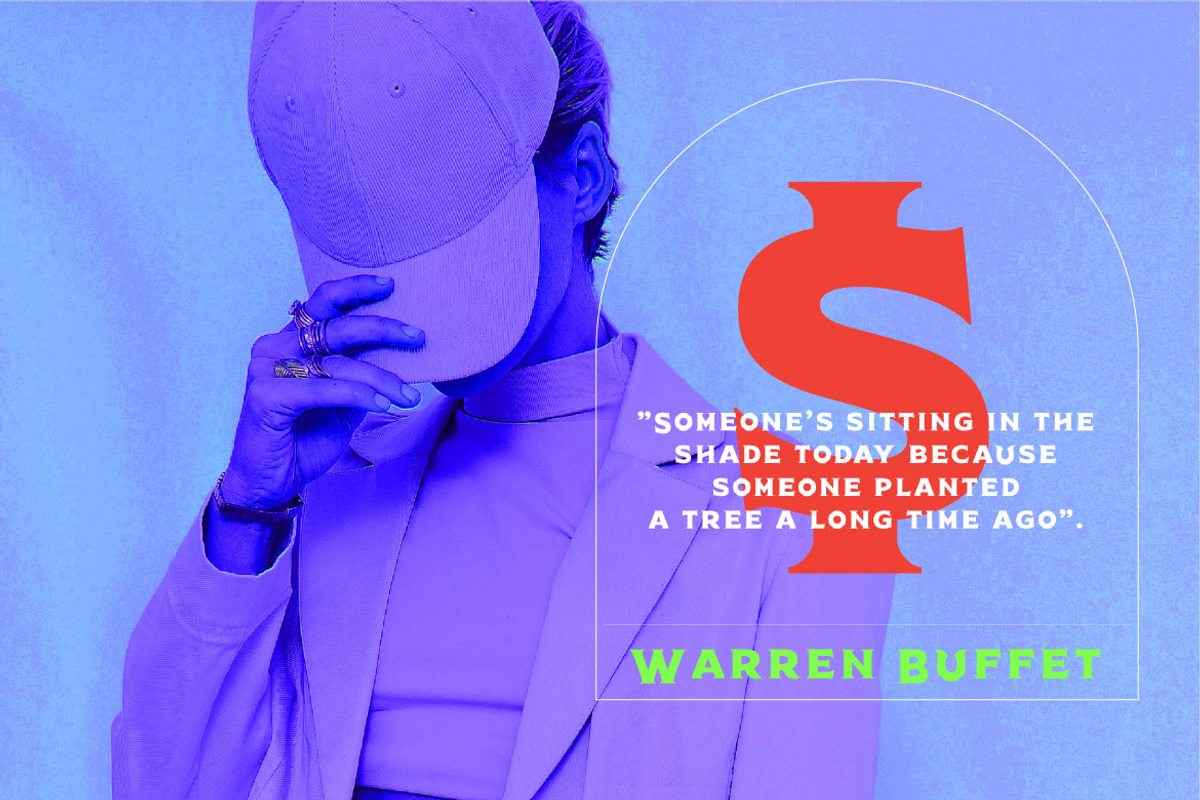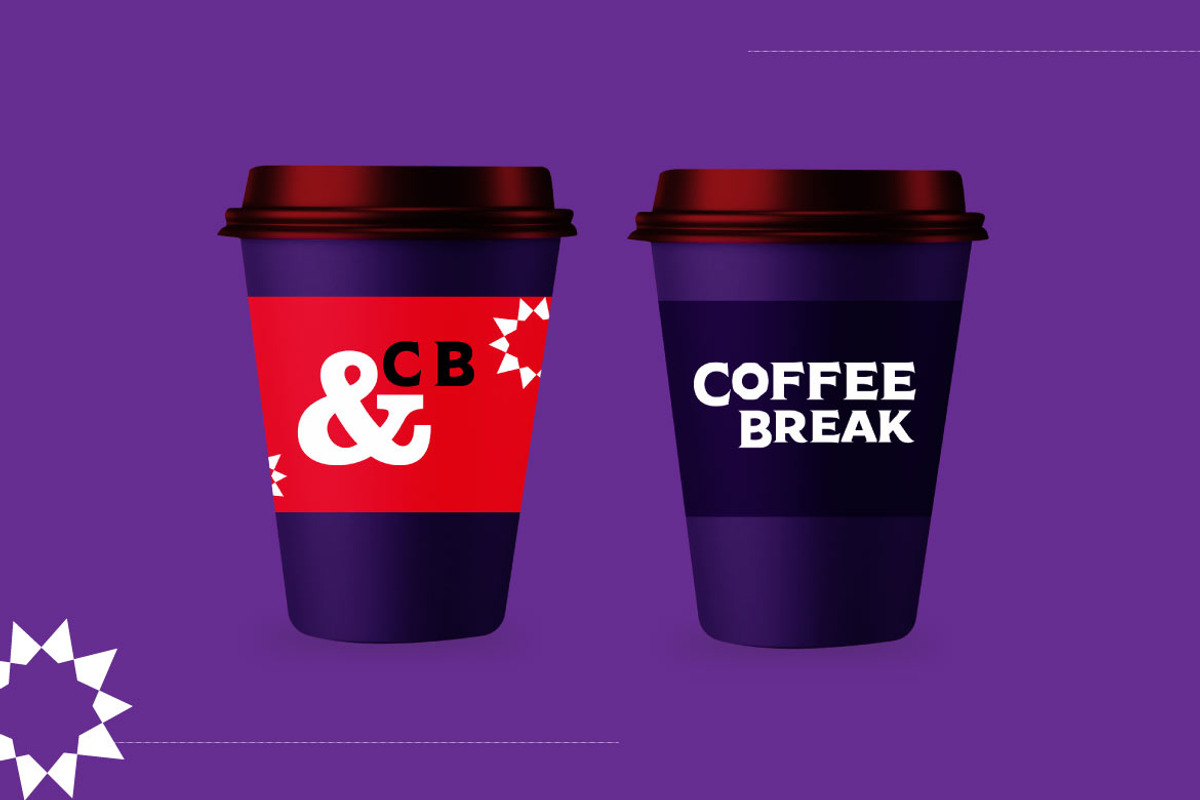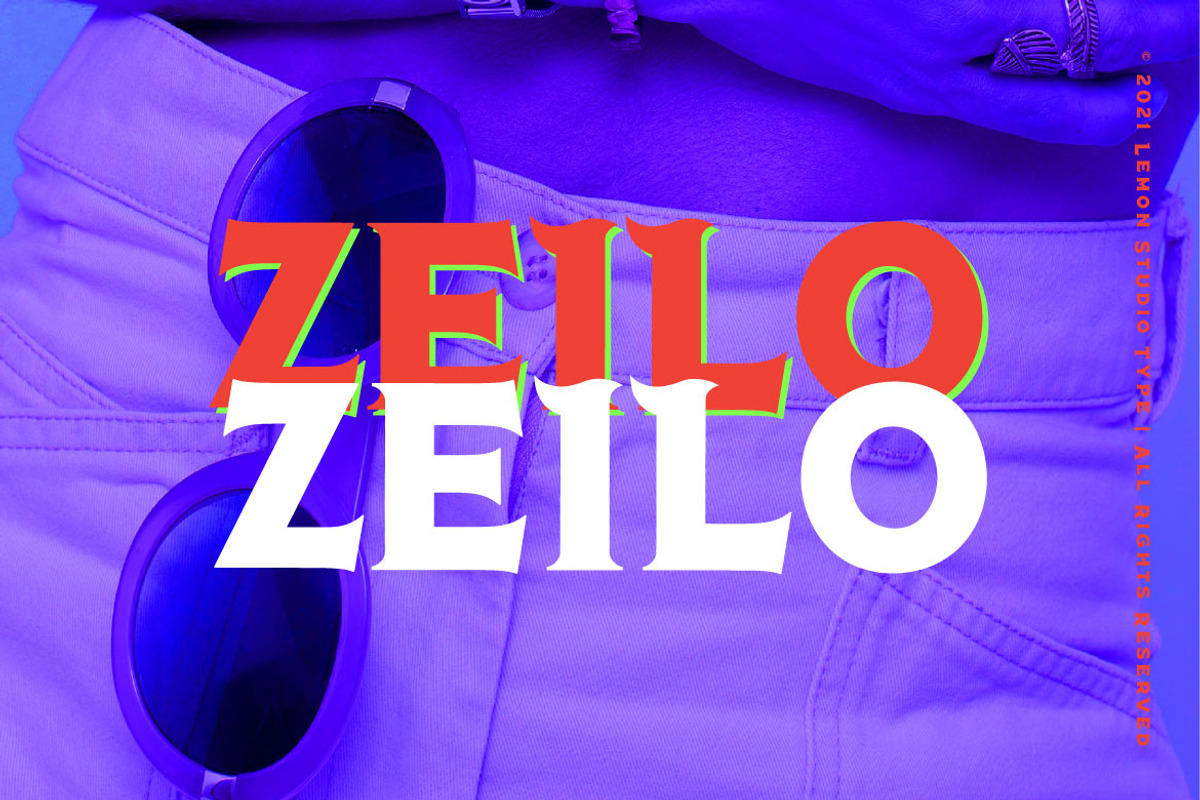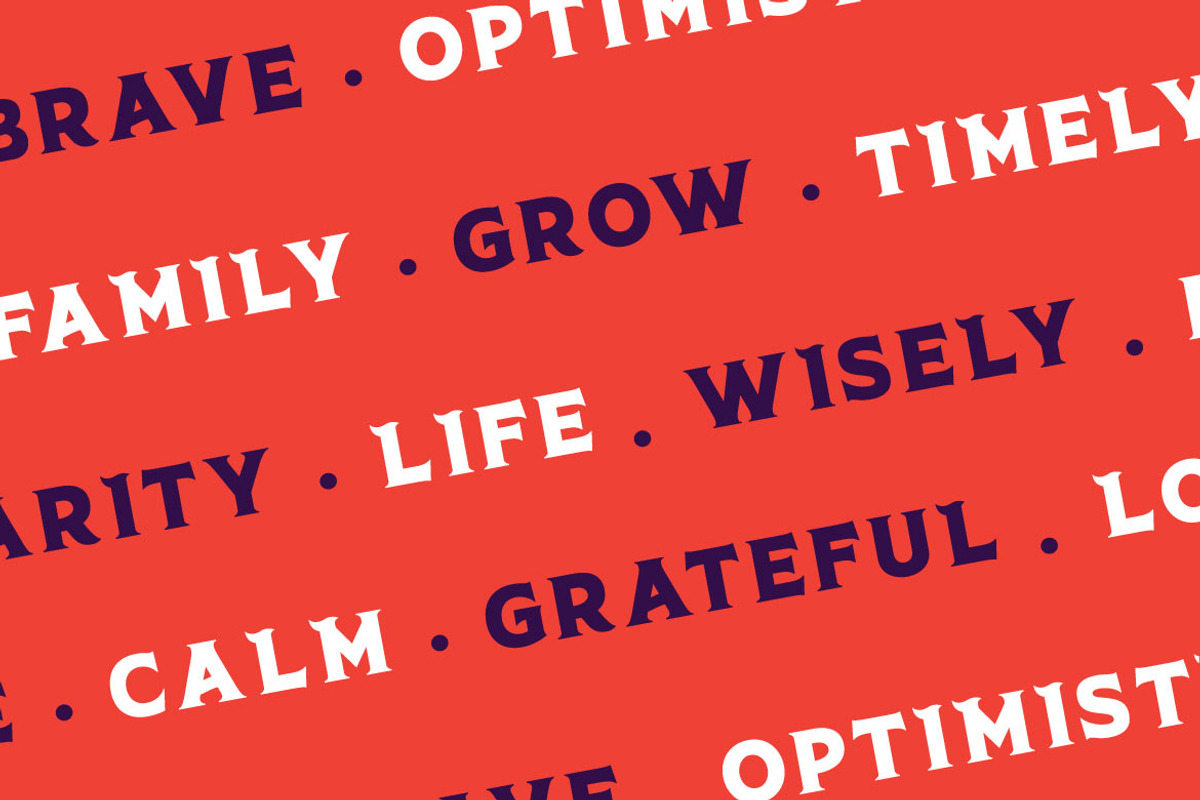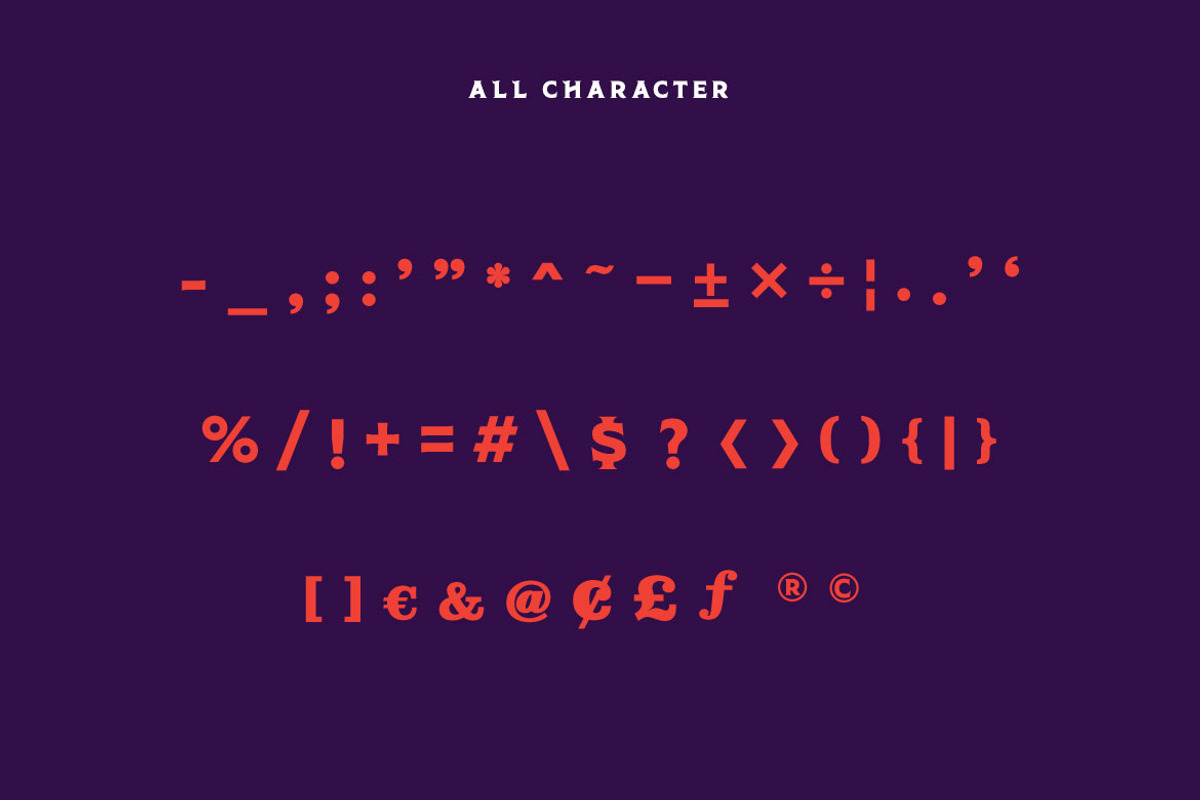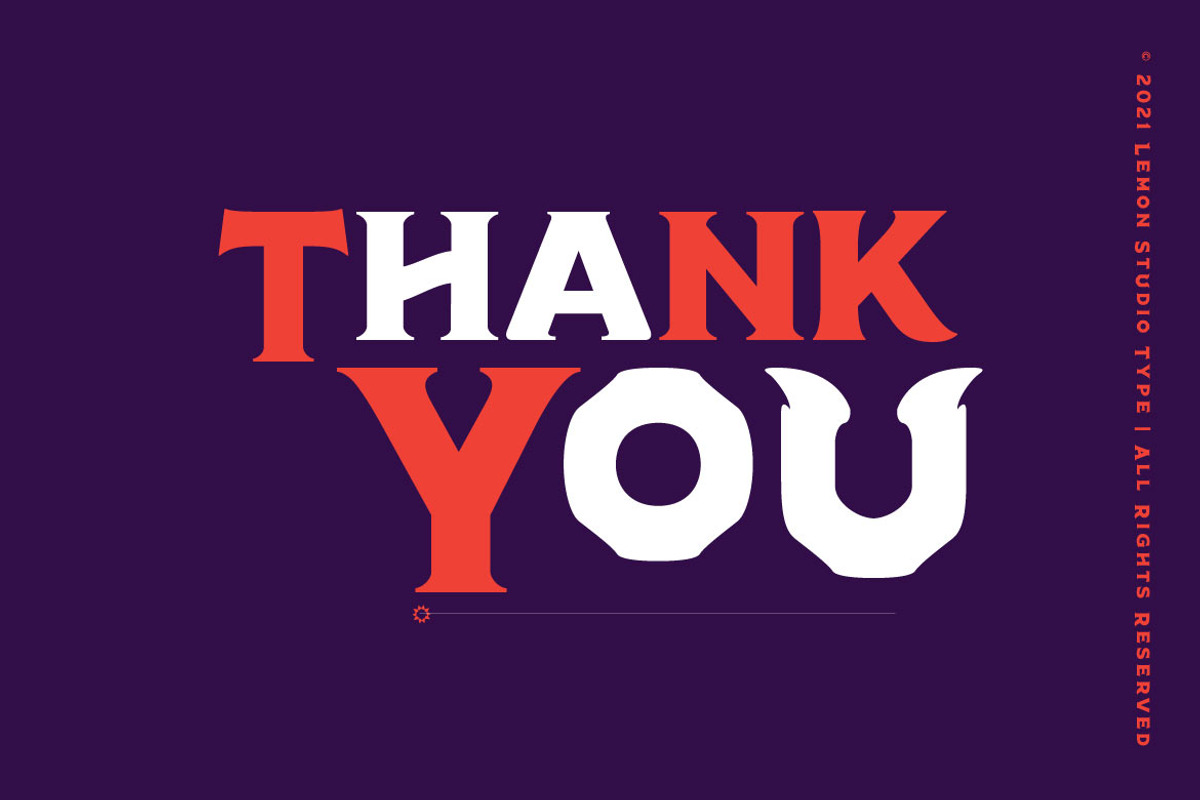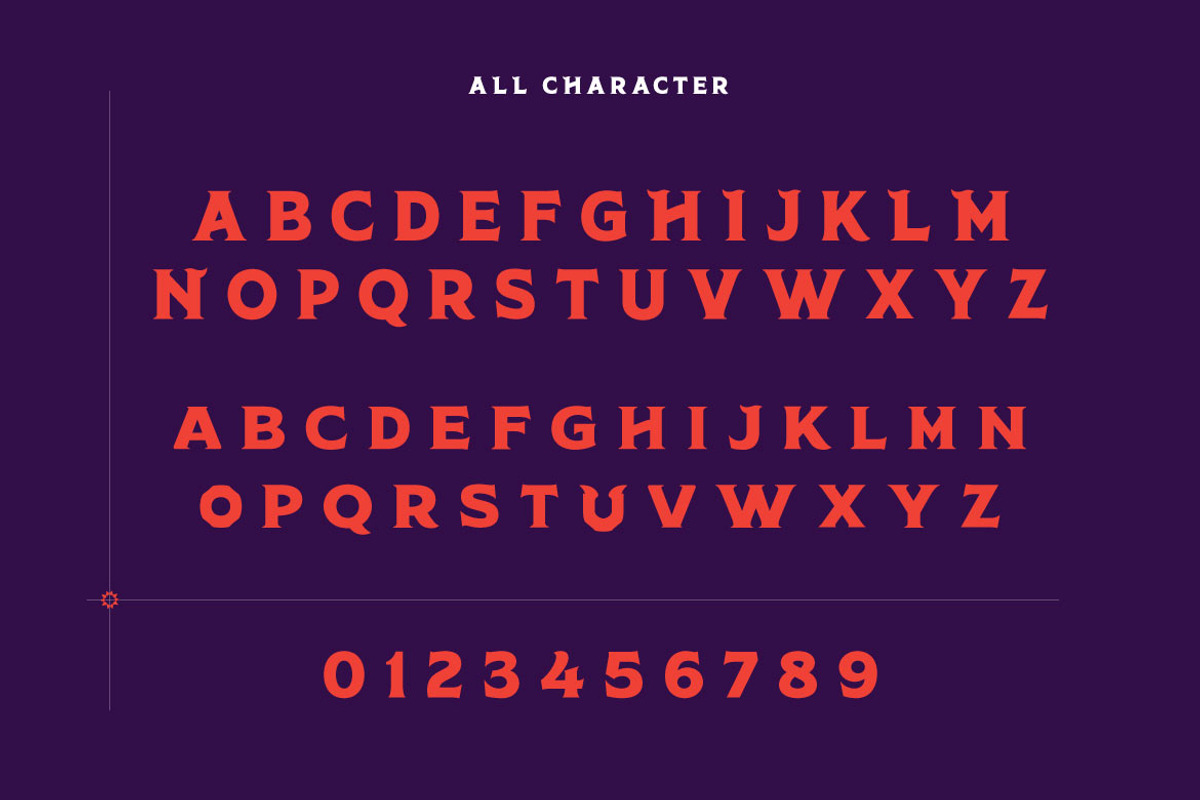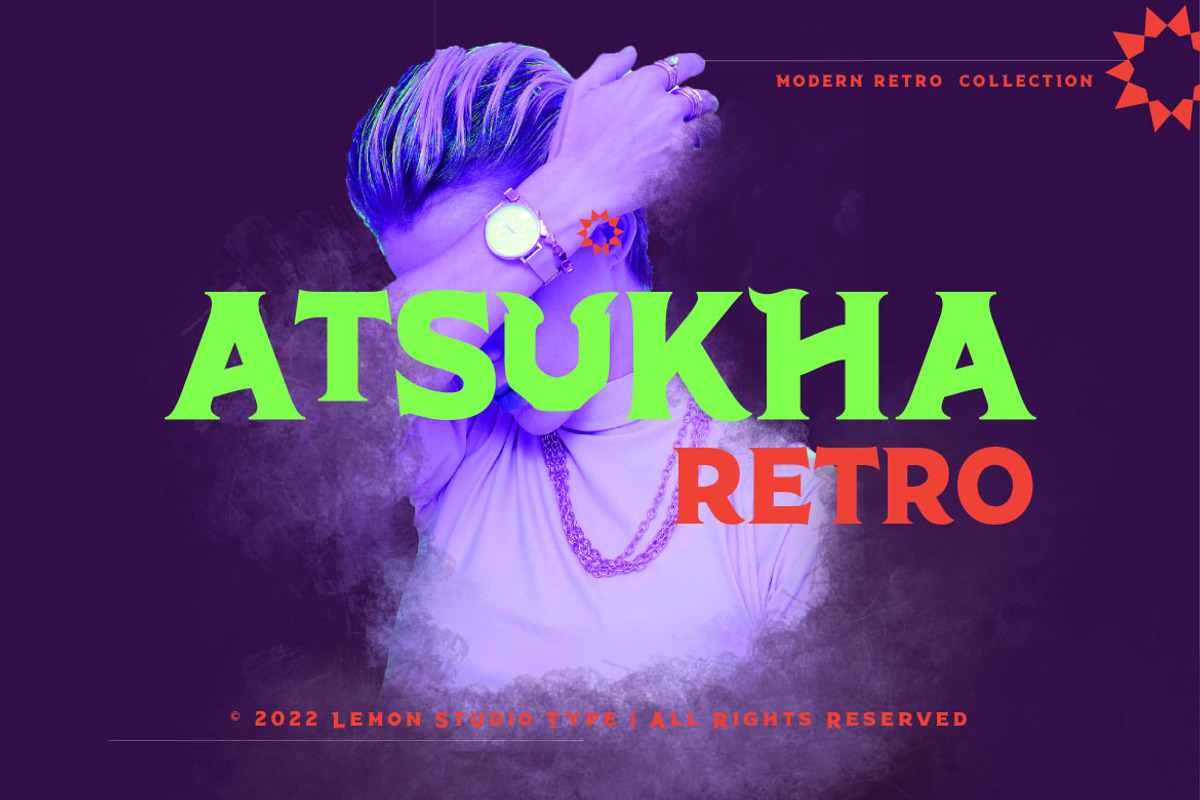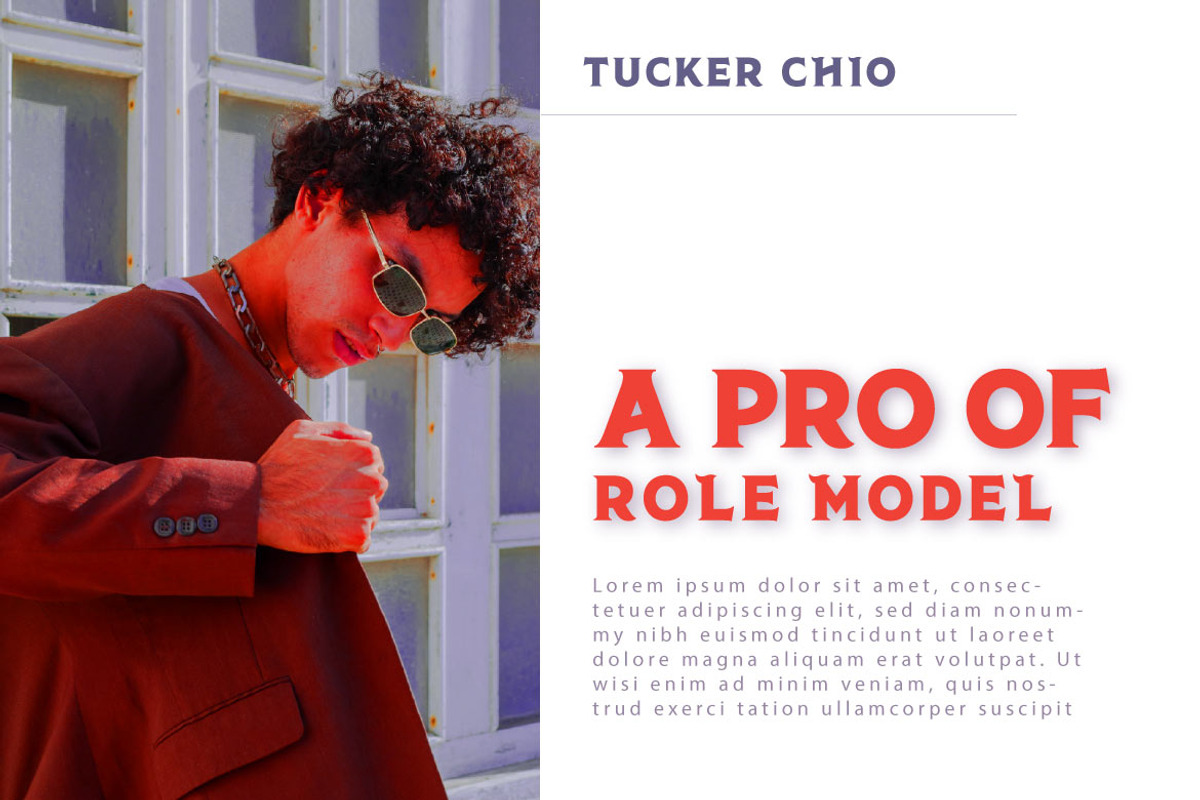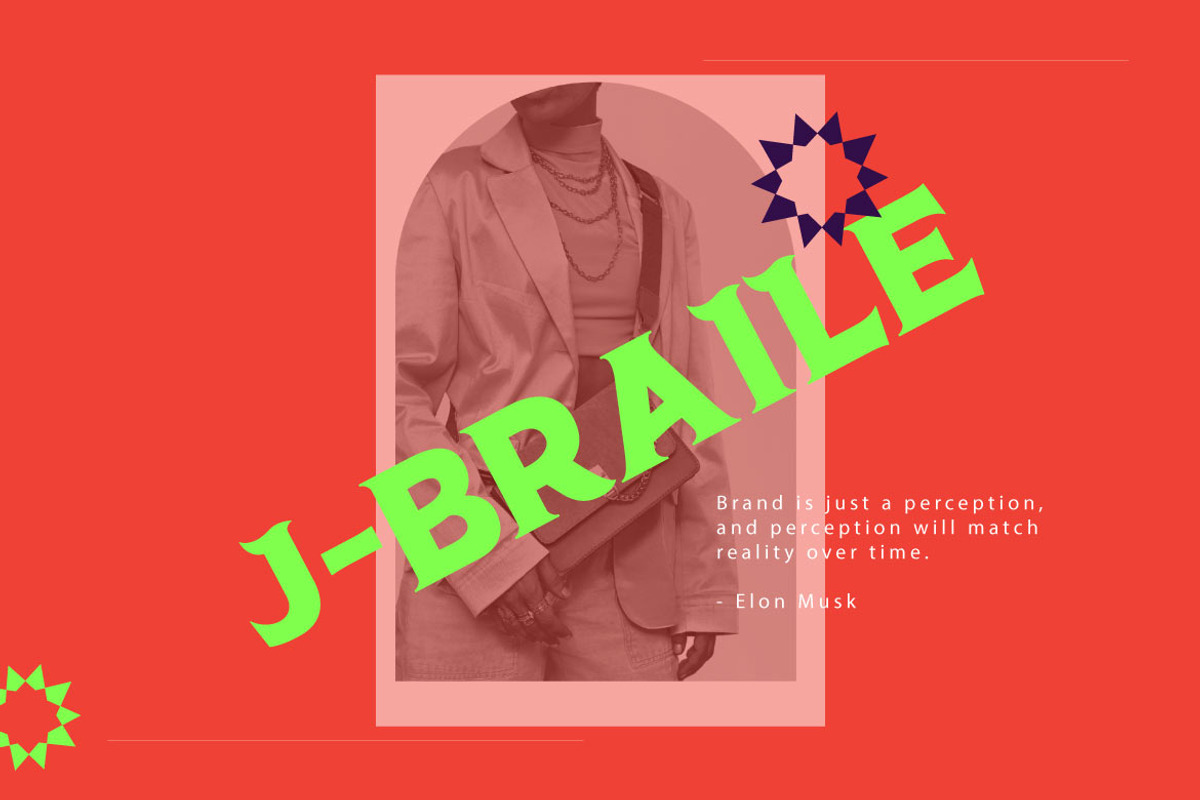
Atsukha Retro - Serif
Atsukha Retro is a combine classic style with modern retro style, so be this font. It's a great serif font. It can easily be matched to an incredibly large set of projects, so add it to your creative ideas and notice how it makes them stand out!. It was very inspired from the modern retro typography designs in late 80's untill 90's.
Atsukha Retro is perfect for vintage and retro design, badge, logos,t-shirt, poster, branding, packaging, book cover and so much more!.